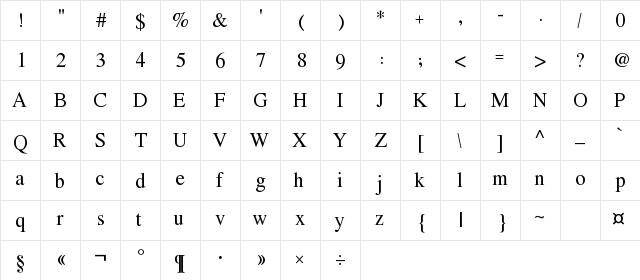
Nazli Regular
| Foundry | Sharif FarsiWeb, Inc. |
Design Context for Nazli Typeface
Nazli takes a measured approach to typography — its balanced proportions and neutral character make it a reliable workhorse for both digital and print work.